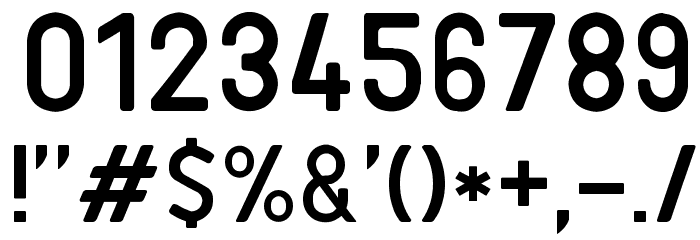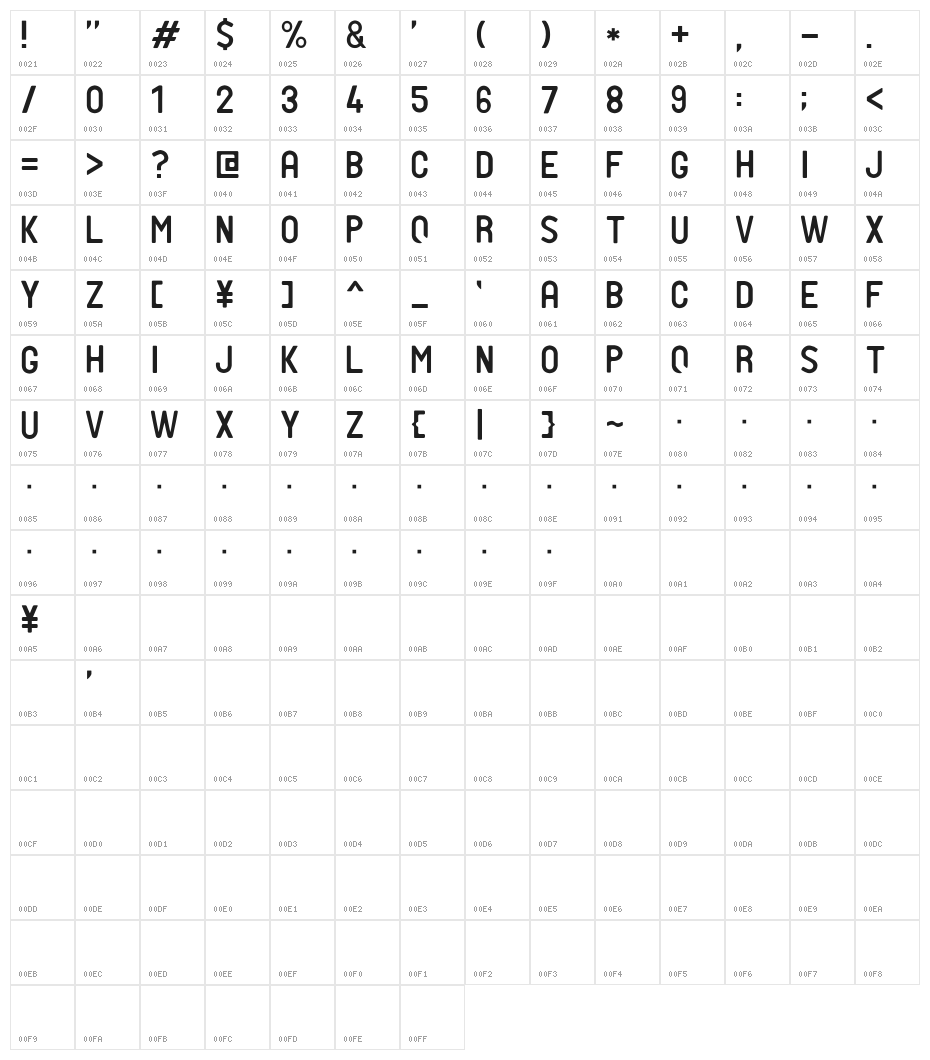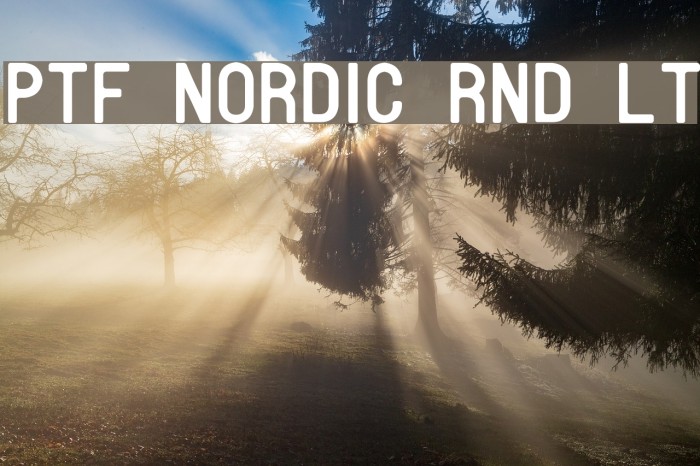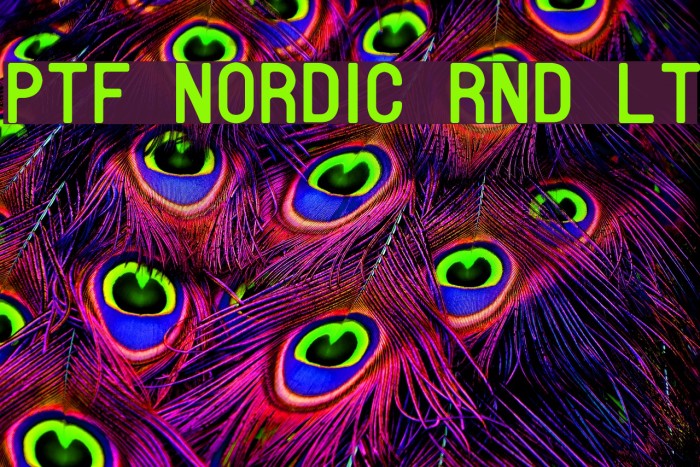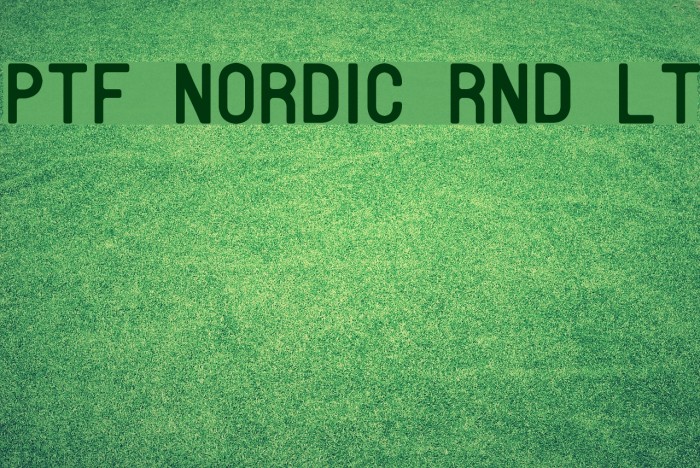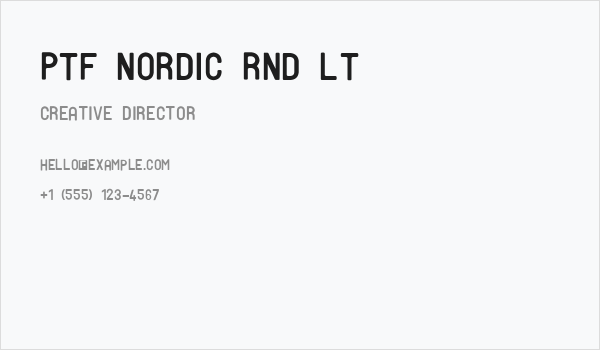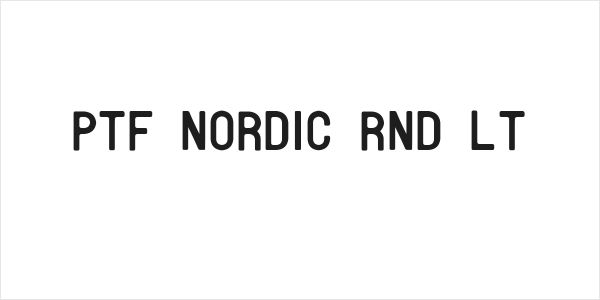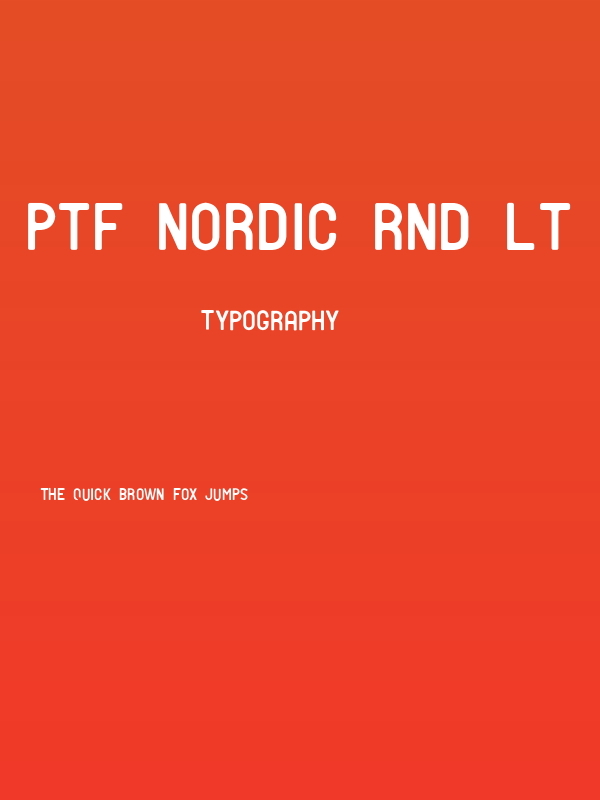
PTF NORDIC Rnd Lt Font
PTF NORDIC Rnd Lt Description
This font features a modern and clean design with rounded edges, giving it a friendly and approachable appearance. The characters are evenly spaced, providing a balanced and harmonious look. The uppercase and lowercase letters maintain a consistent style, with smooth curves and a uniform stroke width. The numerals are clear and legible, making them suitable for various applications. Special characters are included, enhancing its versatility. Overall, this font combines simplicity with a touch of elegance, making it ideal for contemporary design projects.